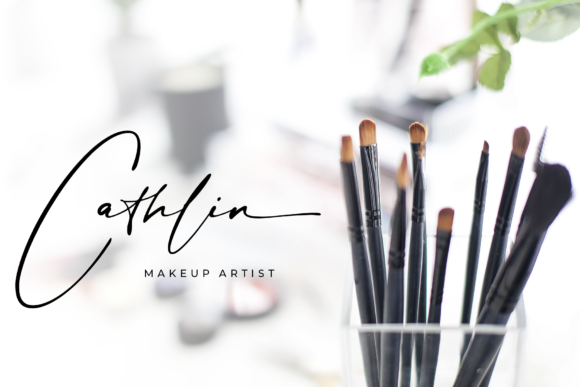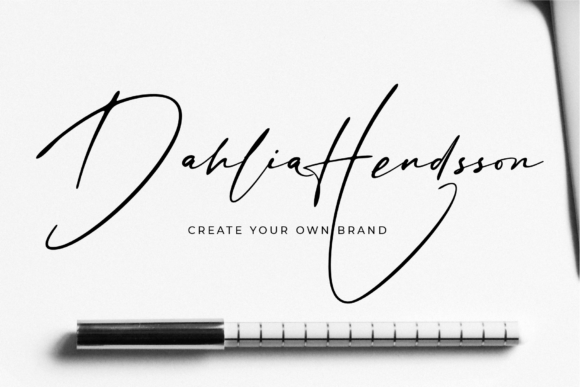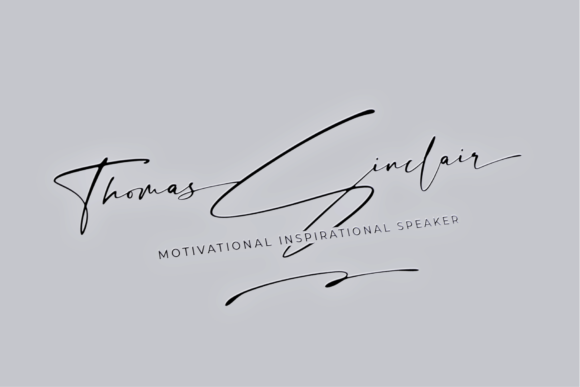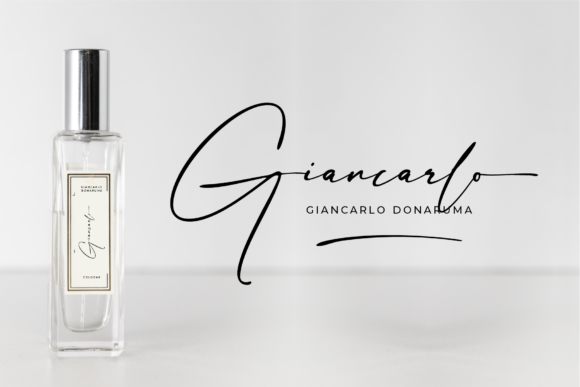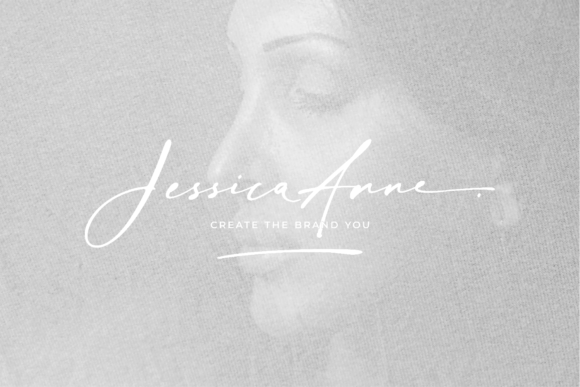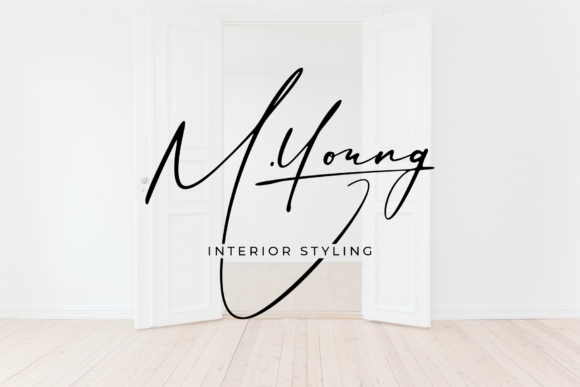
Introduction to Sign Style Font
Sign Style is a contemporary signature script with rich swashes and bold lines.
Get inspired by its authentic charm .
Key Features of Sign Style Font